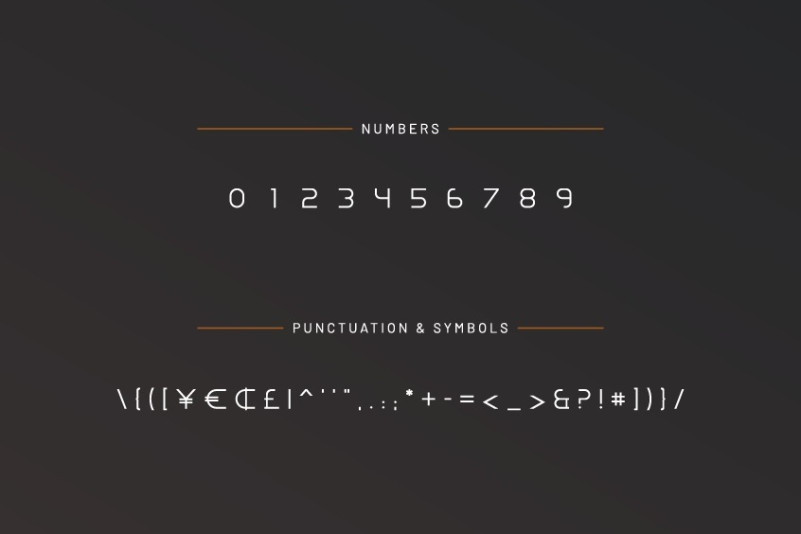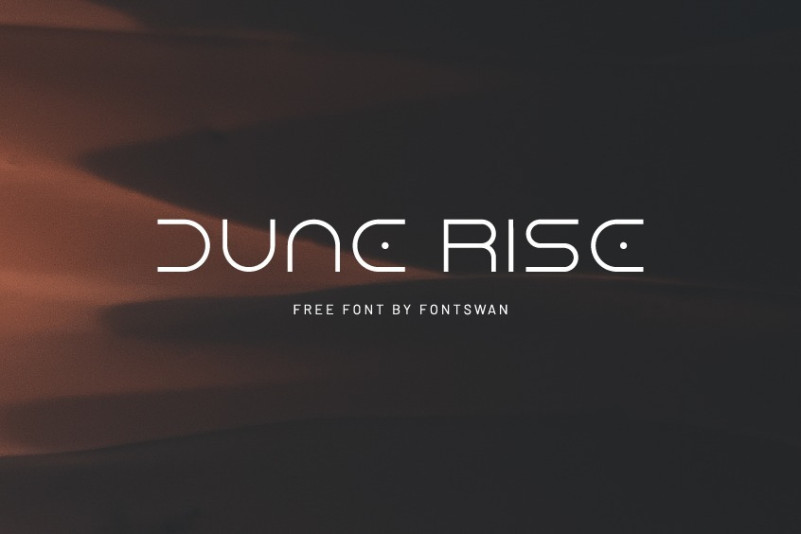
Dune Rise Font
Dune Rise Font is a free futuristic display font, inspired by the title of the movie “Dune” by Denis Villeneuve. The font was created by Jesta Designs based on the Canadian Aboriginal syllables, which could be the same way Denis’s film logo was designed.
This is the first version of the font, it contains only uppercase letters. However, the presumed lowercase letters contain some alternate characters. Also includes numbers, some currency symbols, and basic punctuation marks.
Dune Rise font is not intended for long text. It will work specifically well for display purposes such as logos, branding, ads, space themes, technology, digital, movie logo design, or any other application that needs an abstract modern style.